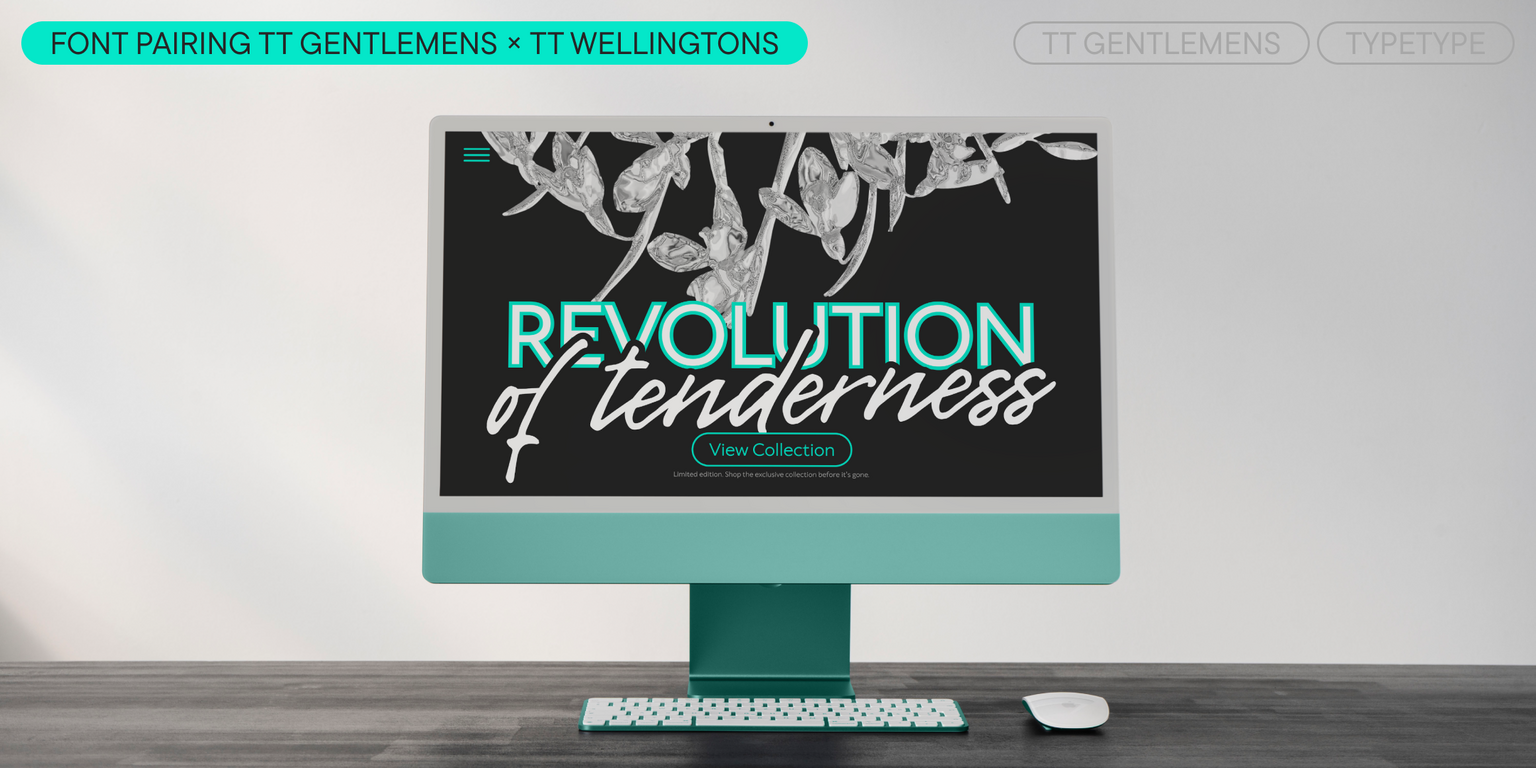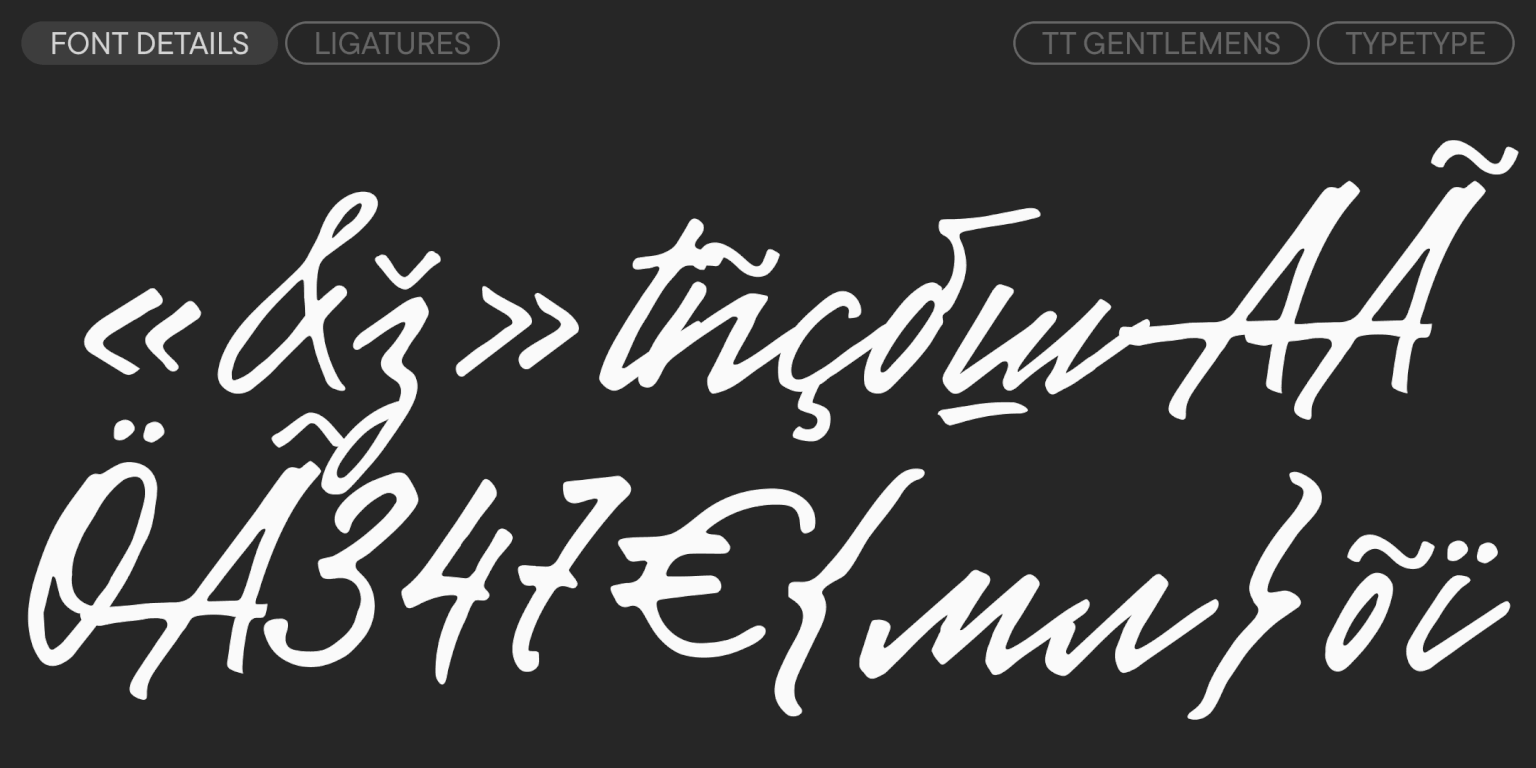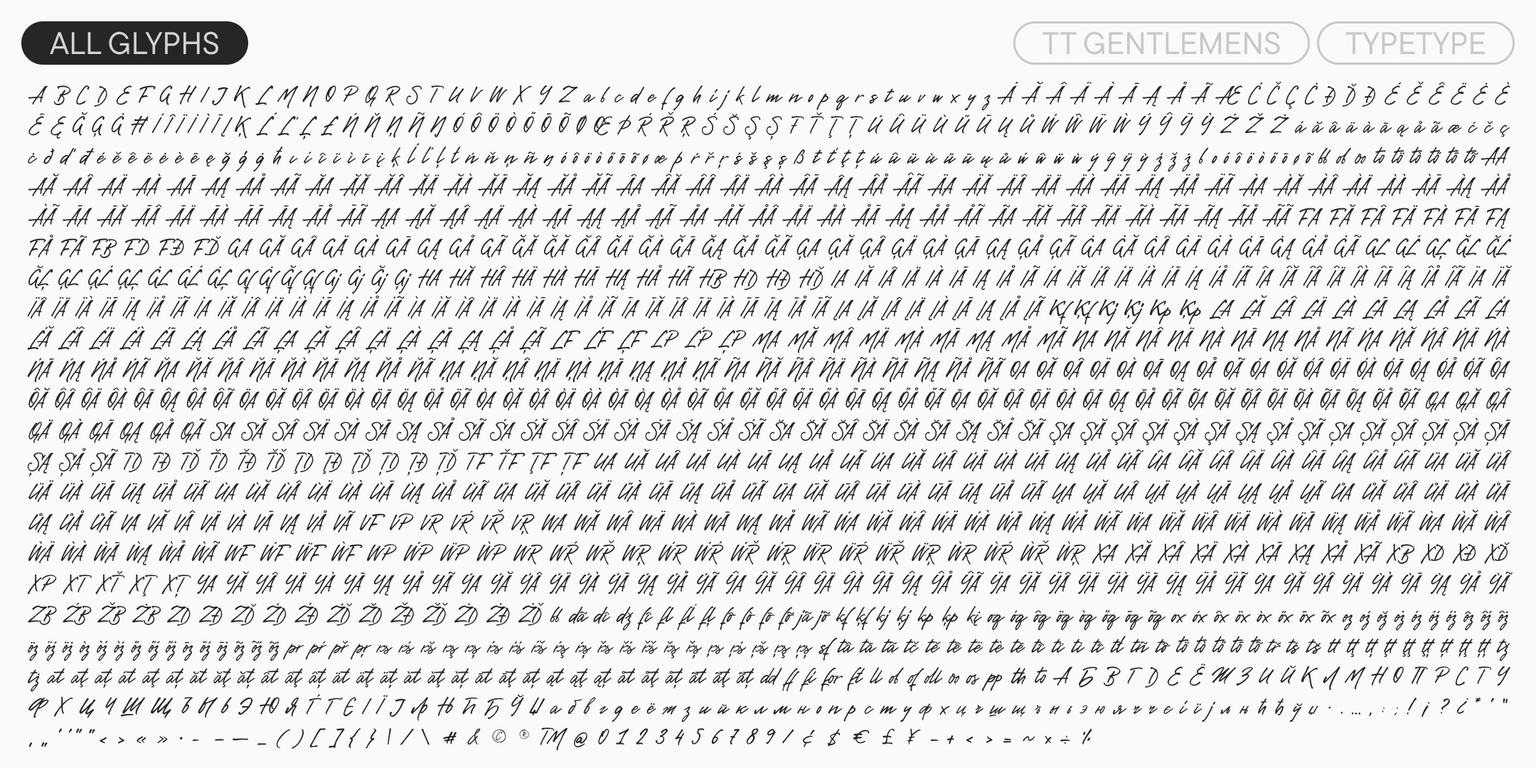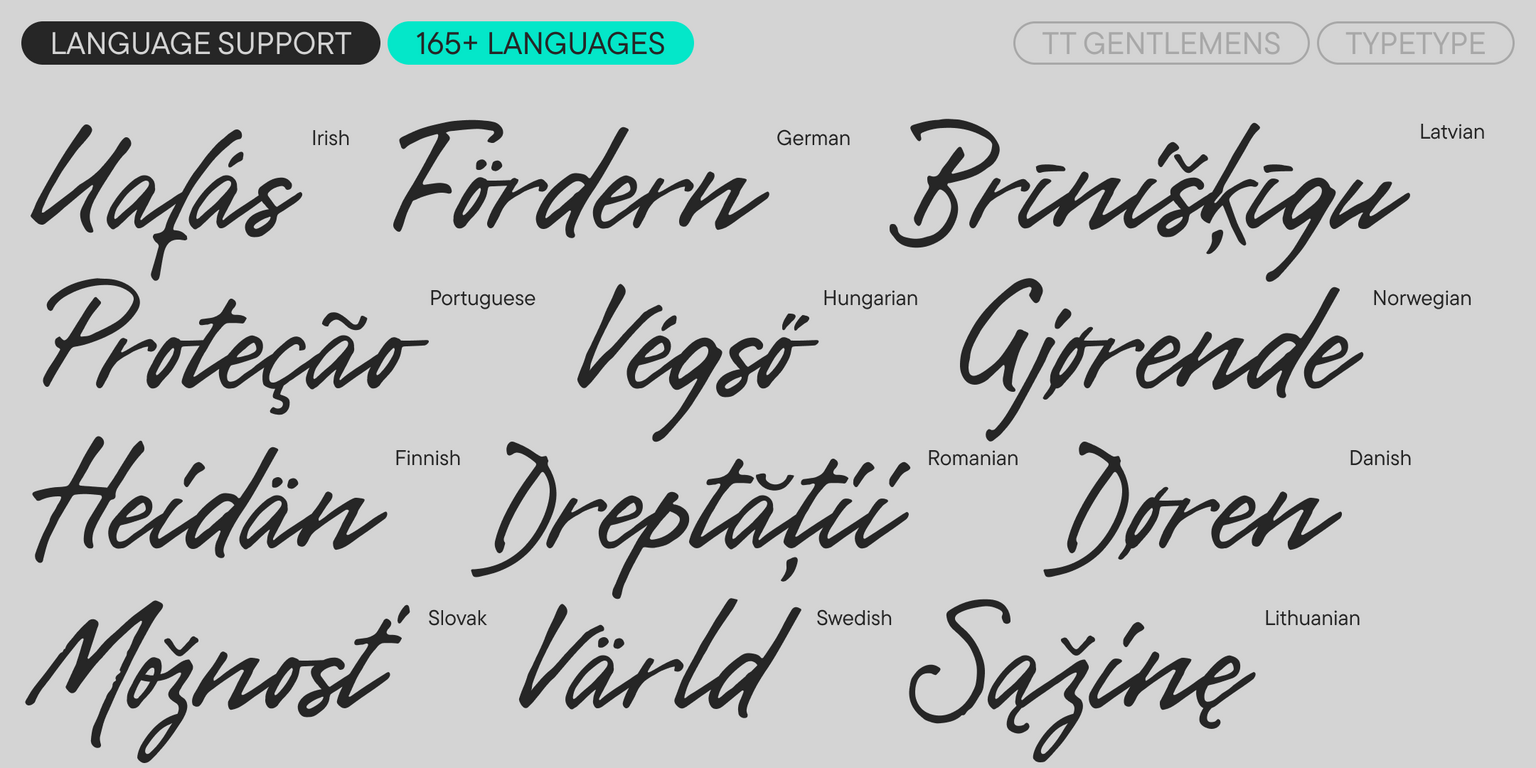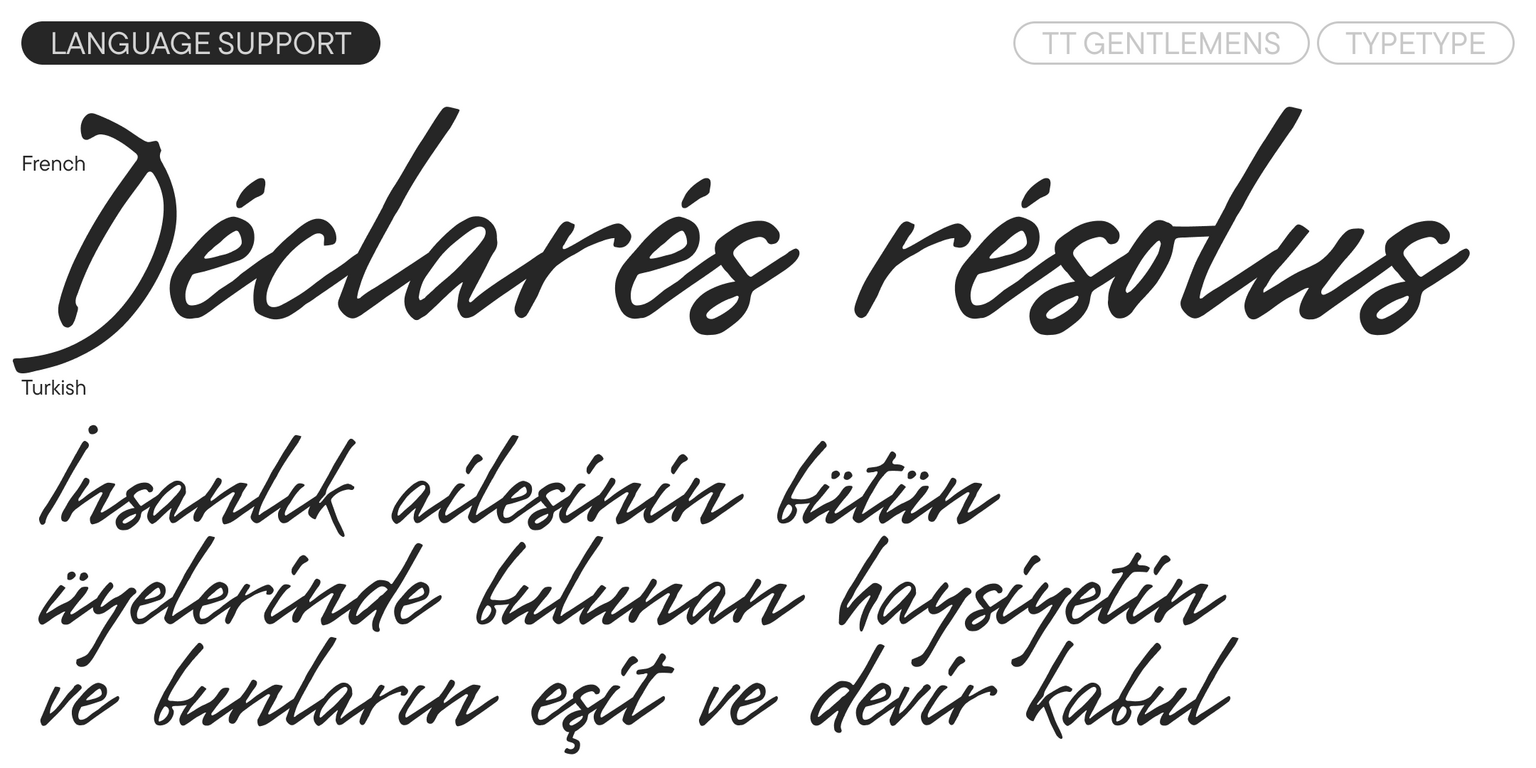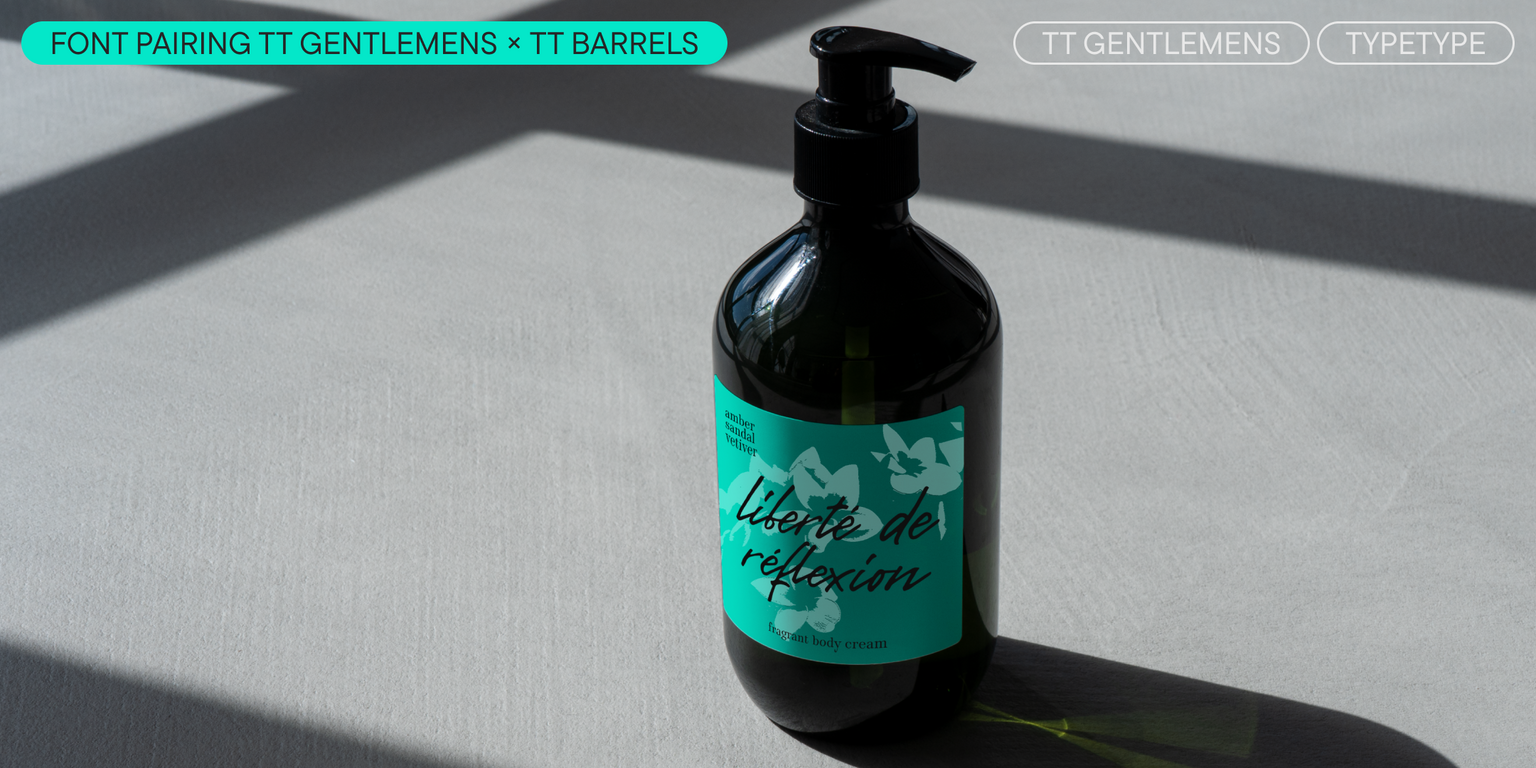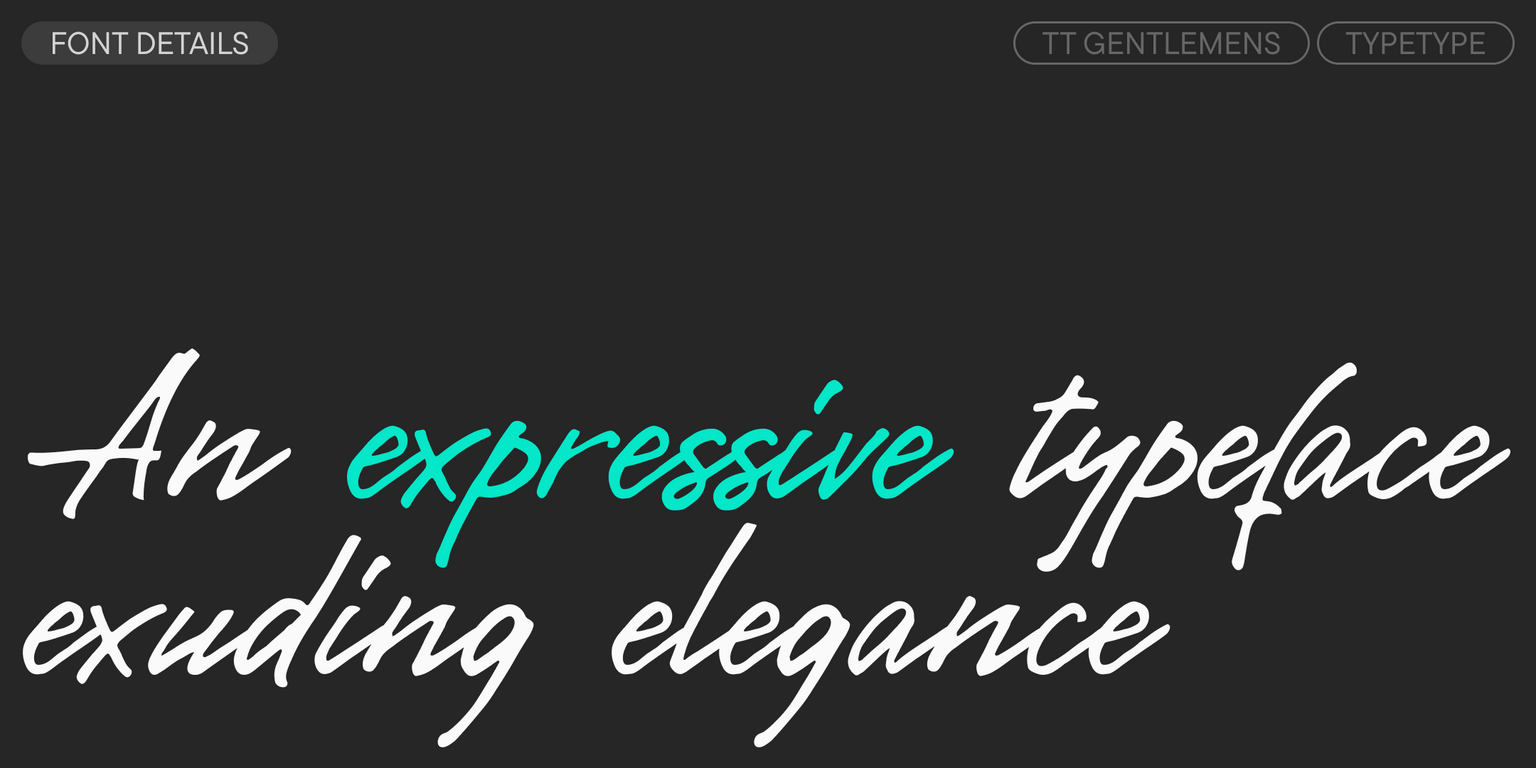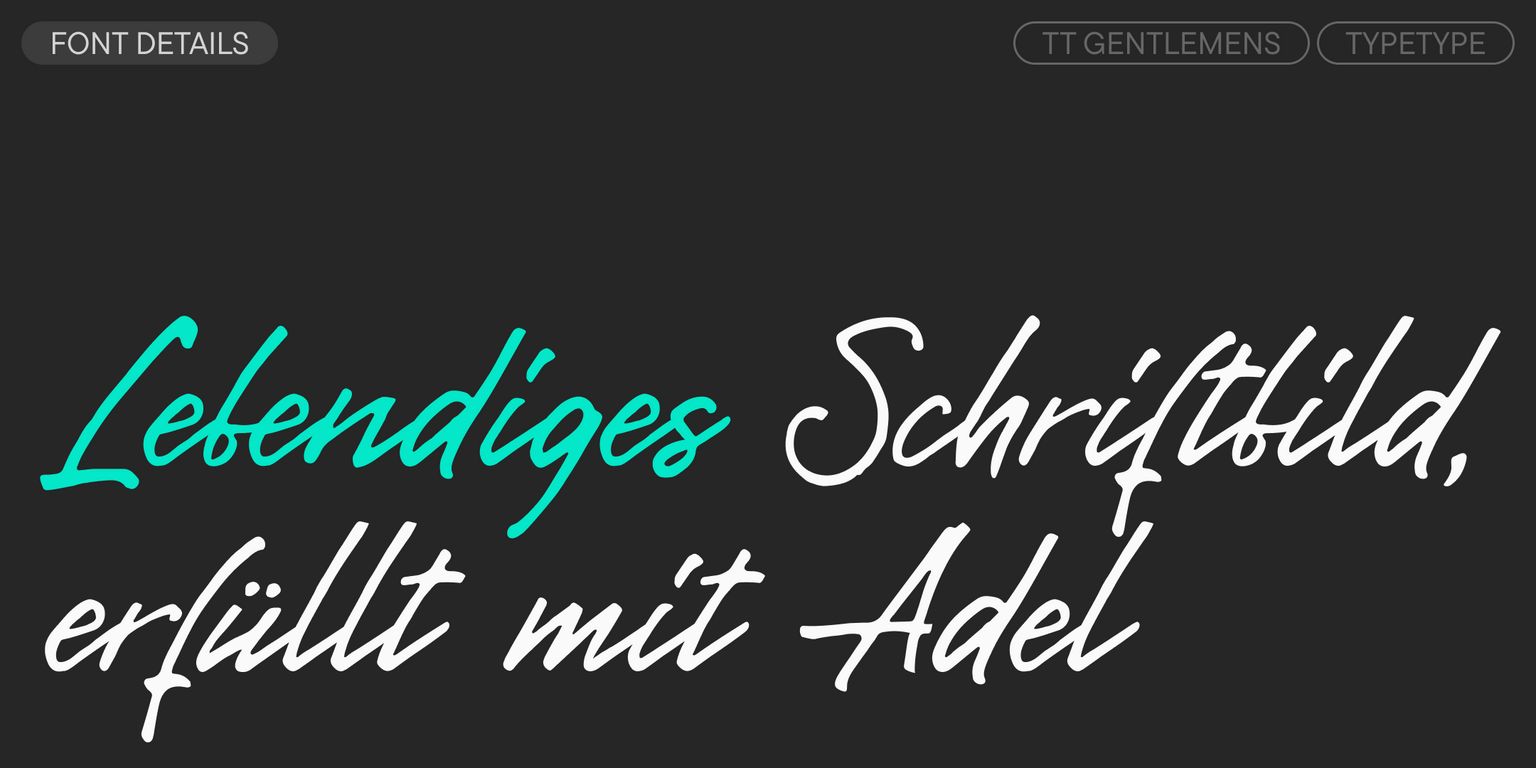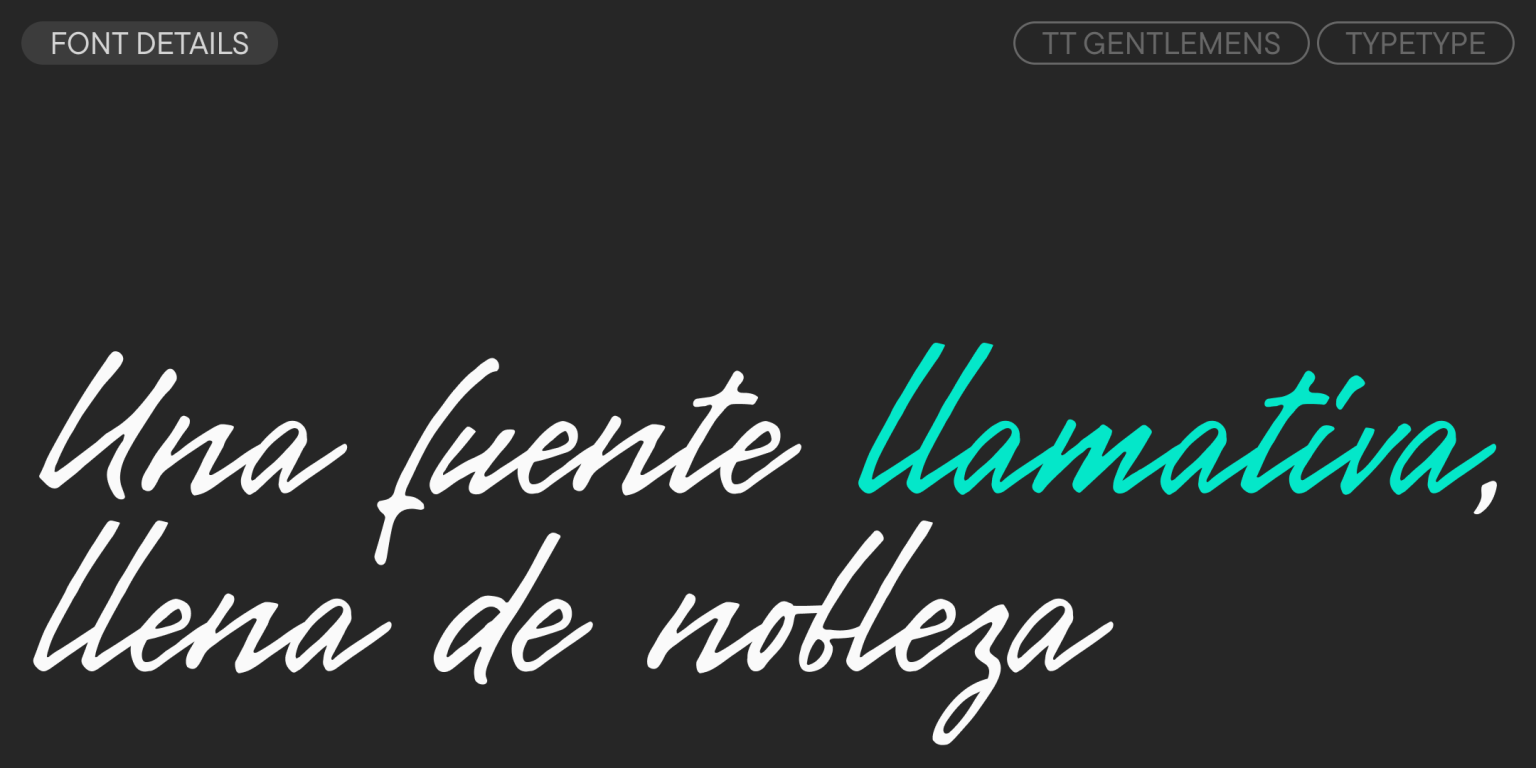
TT Gentlemens
TT Gentlemens is a handwritten font with dynamic letterforms. Combines precise, formal penmanship with elegance and refinement.
A vibrant, well-bred, and noble script typeface with impeccable style.
TT Gentlemens is a dynamic handwritten typeface that combines the seriousness and precision in writing with elegance and sophistication. It has the character and style of a true gentleman: restrained and always appropriate, yet confident and striking.
Thanks to more than 60 ligatures (liga) and context alternates (calt), text set in TT Gentlemens always looks natural and harmonious. We’ve paid special attention to the interaction between letters and typographical symbols to ensure flawless font performance in any context. For maximum effect, we recommend always using the context alternates (calt) and standard ligatures (liga) features.
TT Gentlemens can be the main design element or its sophisticated complement. It looks excellent both solo and paired with other typefaces, adding expressiveness and modernity to your project. Working independently, this font creates self-sufficient statements that attract attention and are memorable. When paired, it looks best with strict serif typefaces or technological sans serifs.
This typeface is perfect for packaging design and will become a bright accent in branding and corporate identity. It will help give your design individuality, uniqueness, and expressiveness.
SS01 | Turkish i
SS02 | Romanian Comma Accent
liga | Standard Ligatures
dlig | Discretionary Ligatures